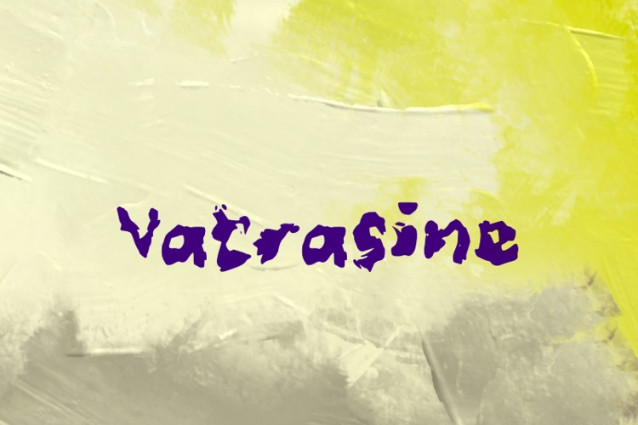
Vatrasine Font
Vatrasine Font, it would be a perfect choice to design posters, affiches, logos, t-shirt and magazine prints, eye-pleasing typographic designs and more.